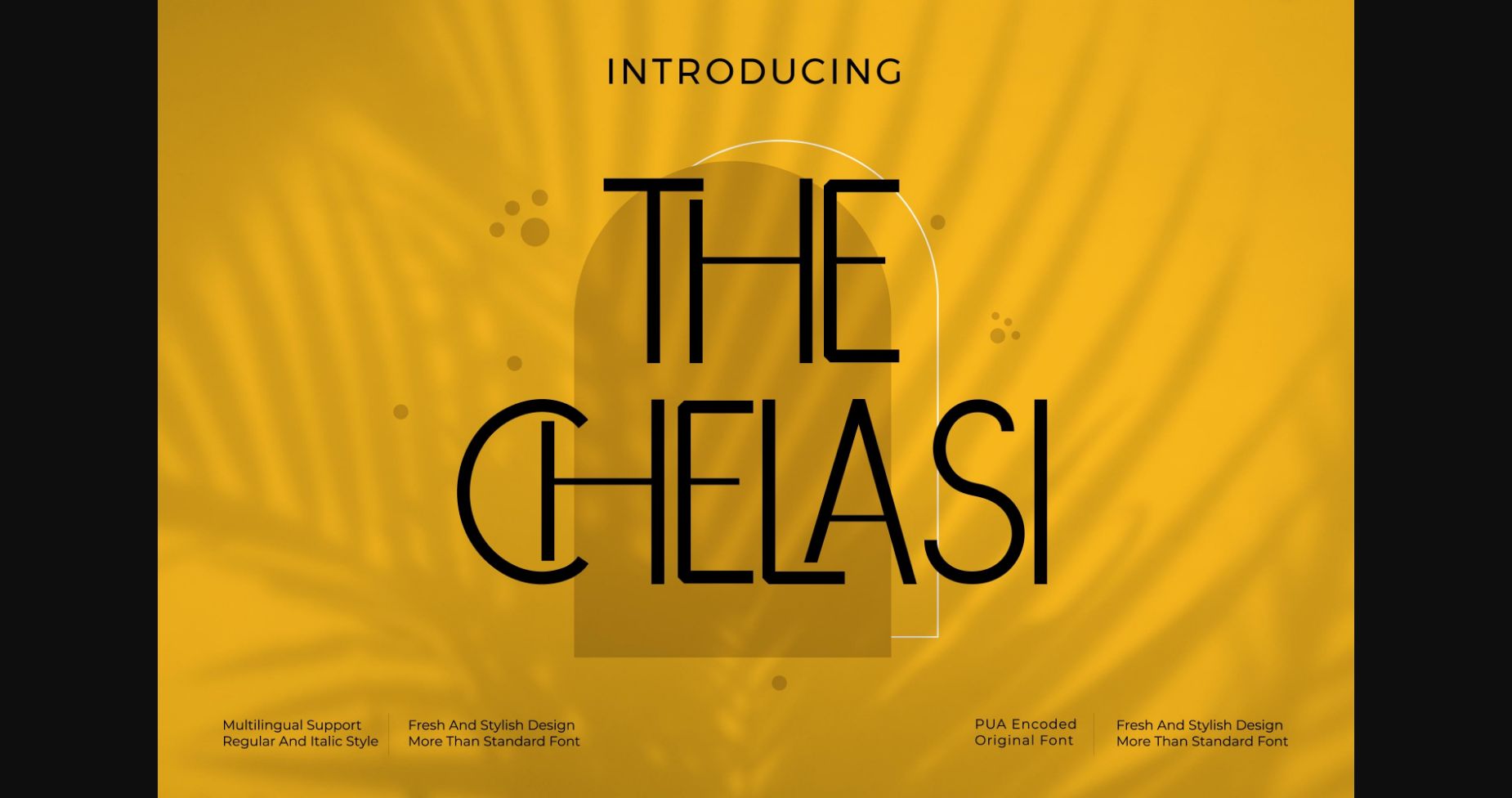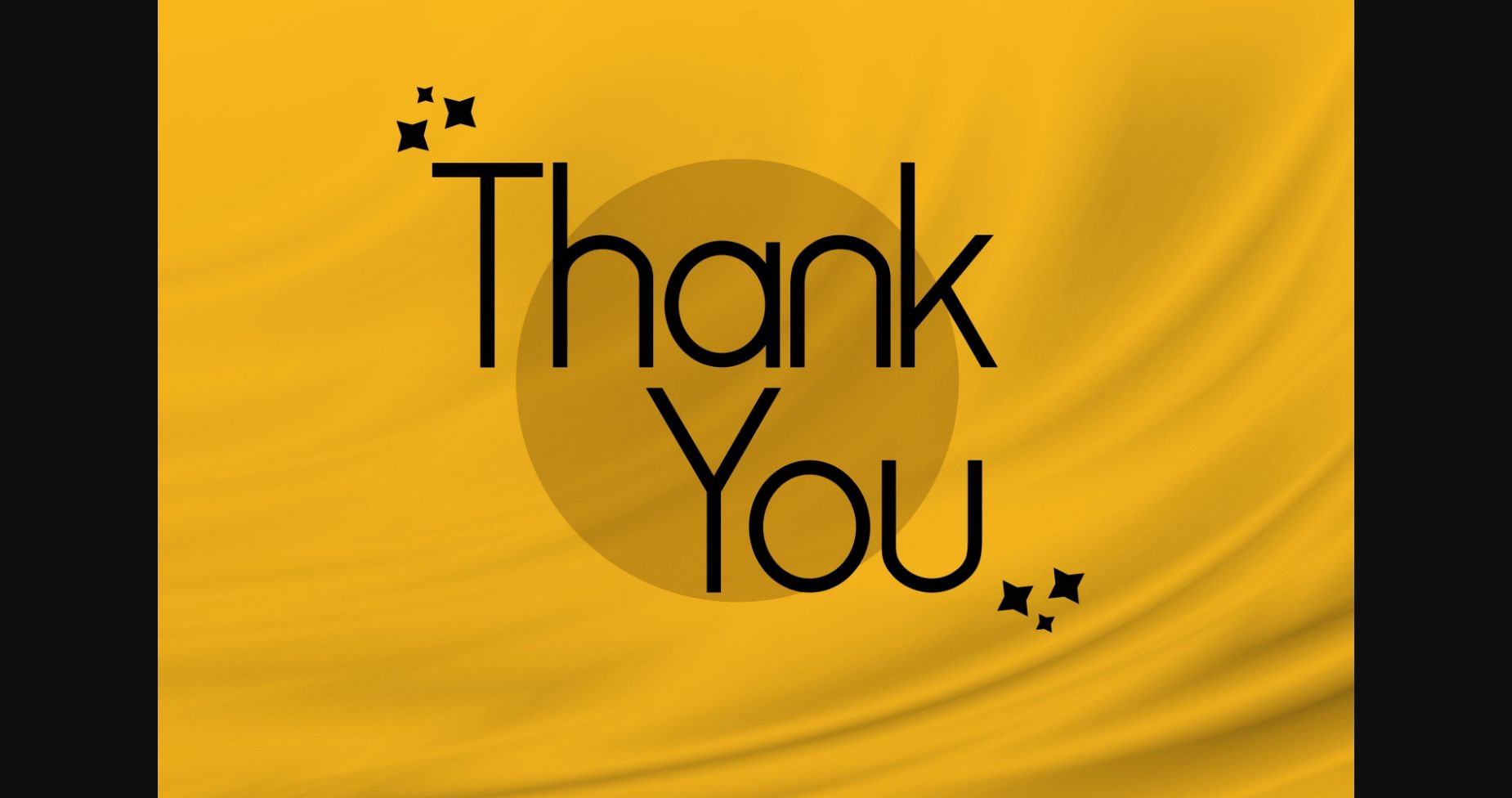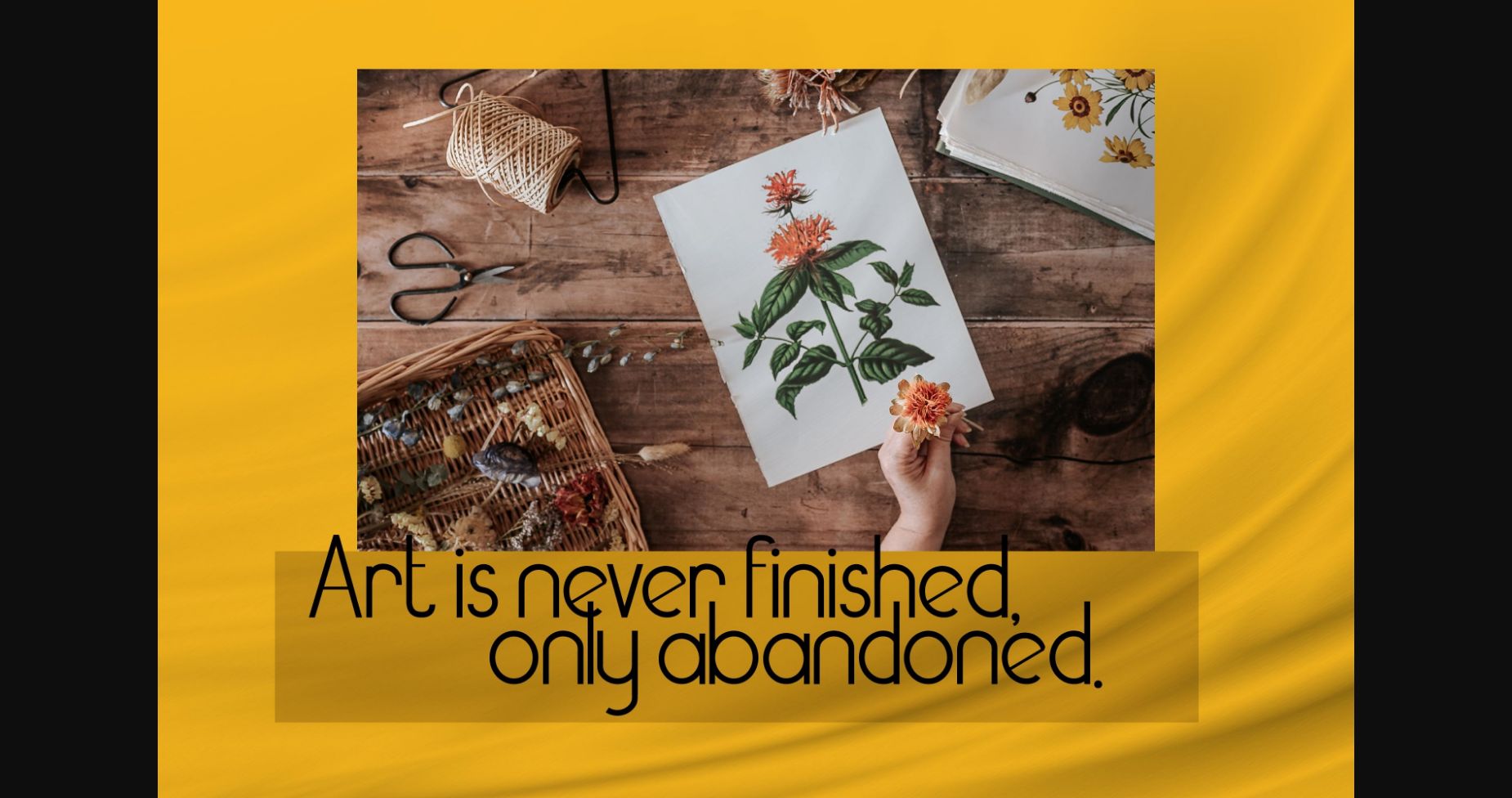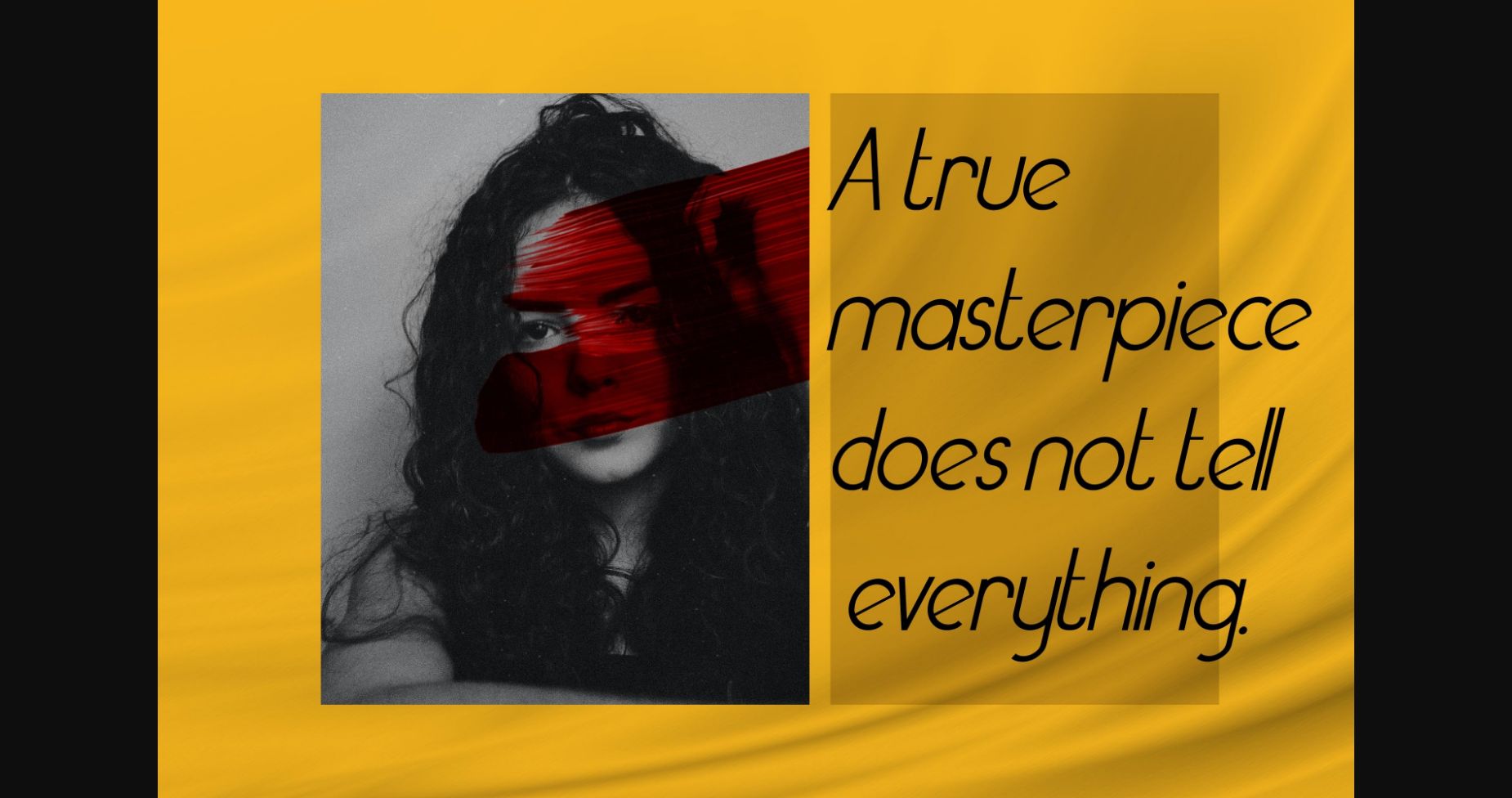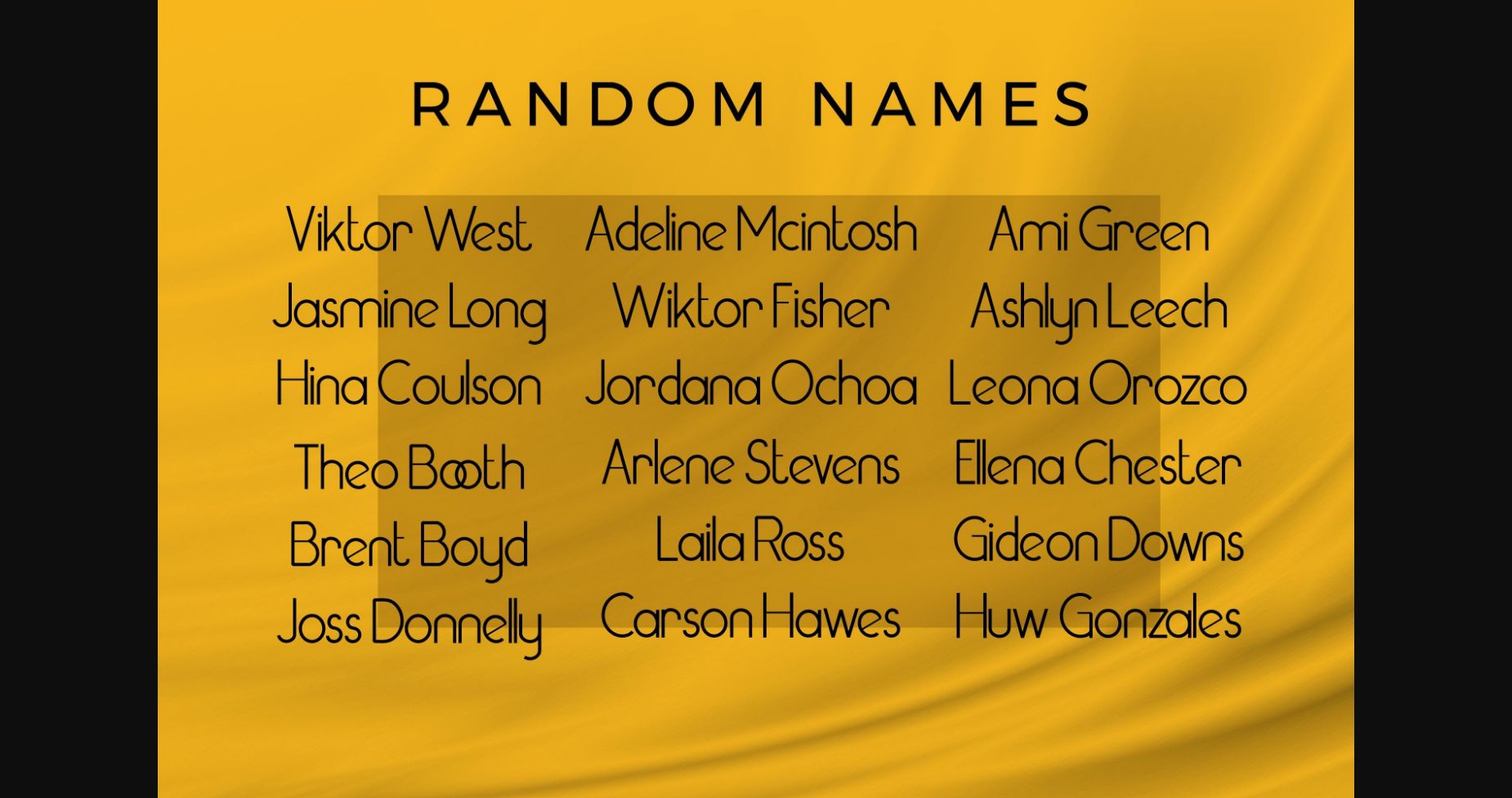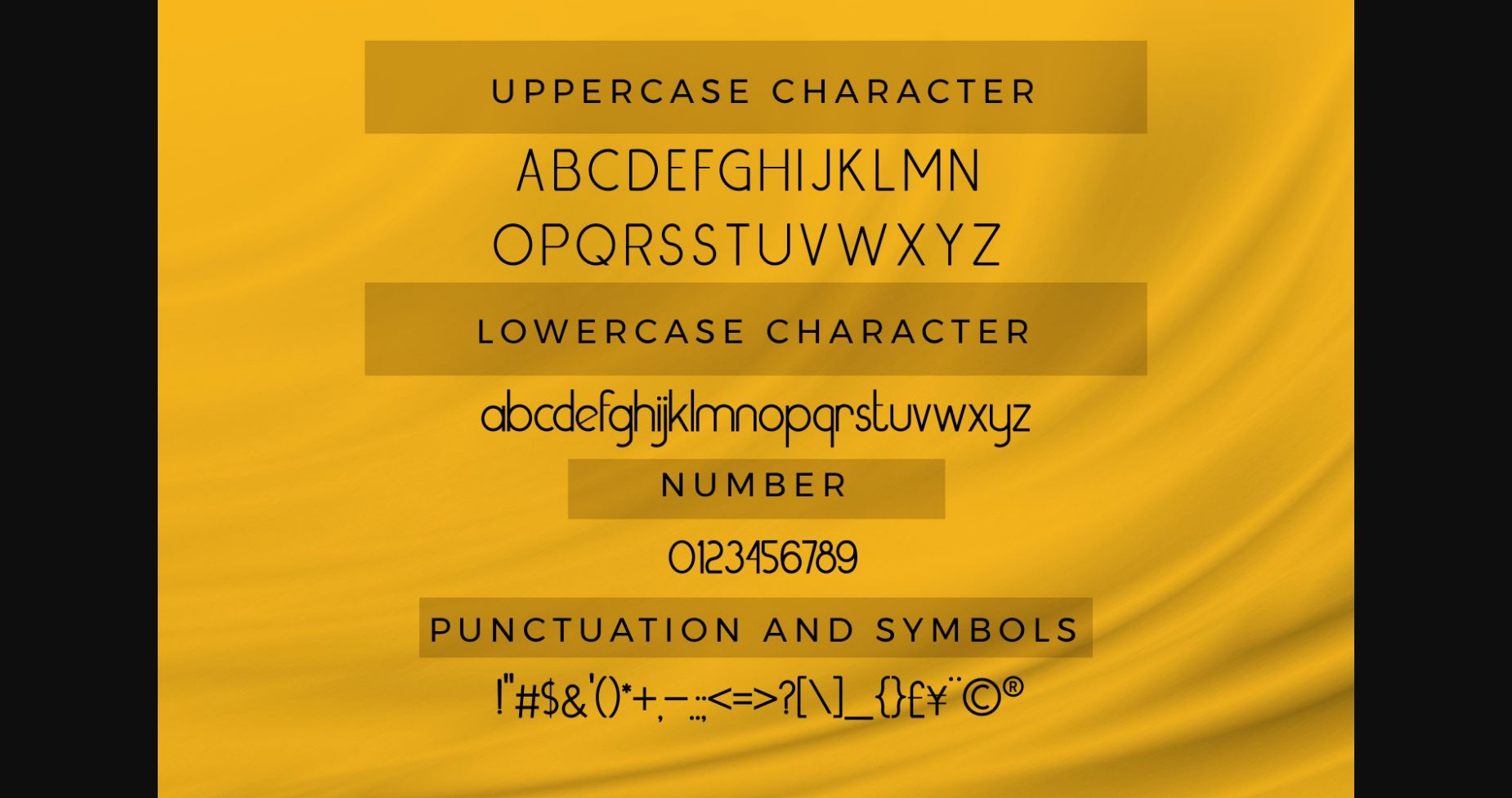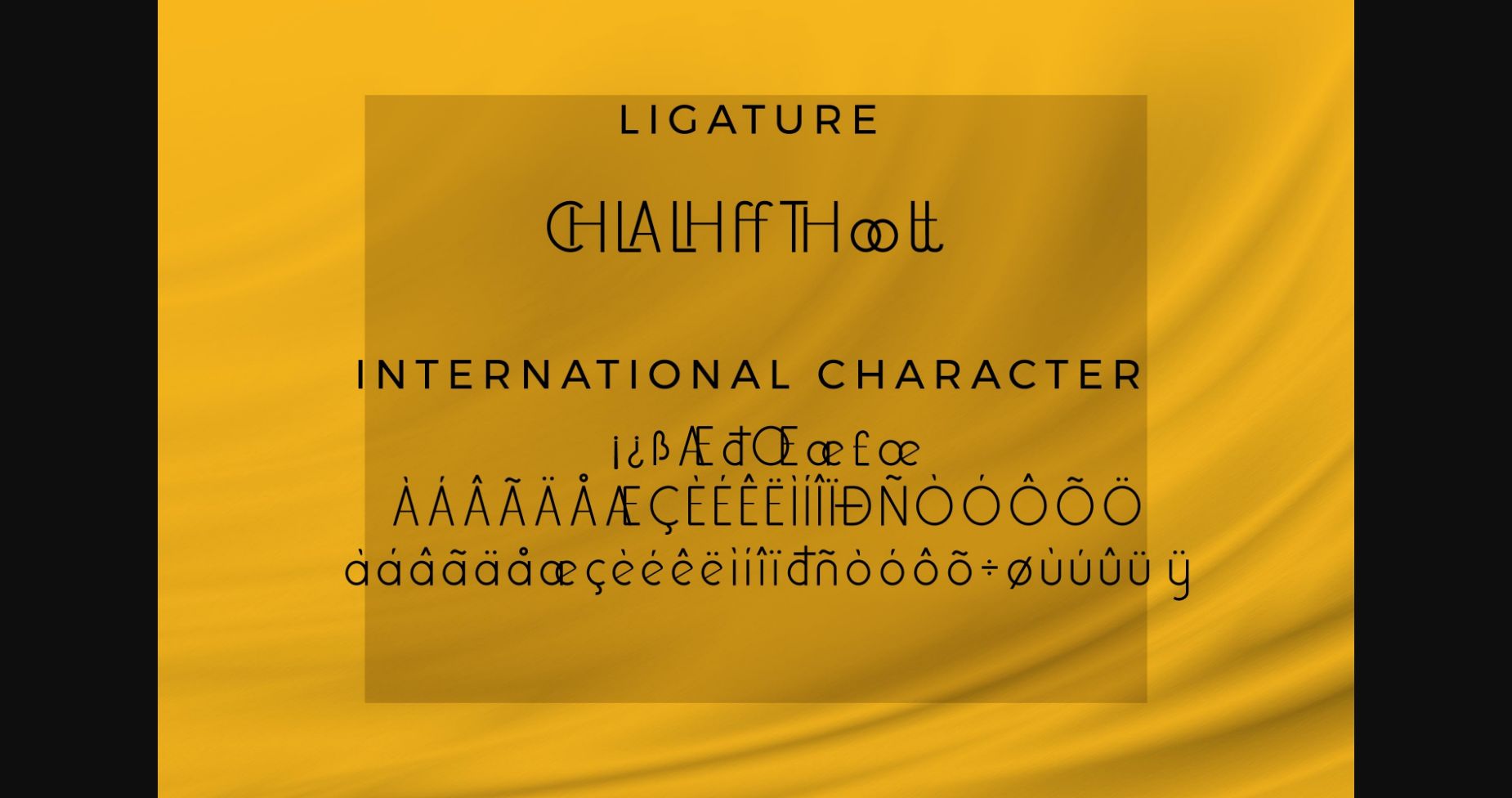
The Chelasi Font
About The Chelasi Font
The Chelasi is a thin and tall sans serif font. It can easily be matched to an incredibly large set of projects, so add it to your creative ideas and notice how it makes them stand out!